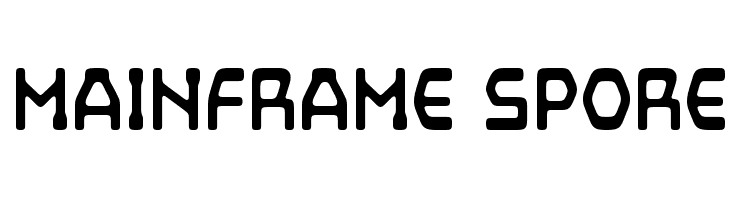
( Disaster Fonts - Andrew - disasterfonts.co.uk )
A futuristic, bold font with rounded edges and a geometric design.
( Disaster Fonts - Andrew - disasterfonts.co.uk )
A futuristic, geometric font with a double-line structure and consistent stroke width.
( Font Bureau - beinghairless.com )
A bold, pixelated font with a retro-futuristic, grid-like design.
( Iordanis Passas - http:/ip-art.info )
A bold, textured slab serif font with a vintage, distressed style.
( Rudhi Sasmito - creativemarket.com/rudhisasmito )
A bold, cursive font with a playful and dynamic style.
( Rudhi Sasmito - creativemarket.com/rudhisasmito )
A bold, flowing script font with dynamic curves and elegant style.
( Sascha Timplan - blog.stereotypes.de )
A tall, elegant font with high contrast and elongated strokes.
( BessAsher Rebel )
A bold and italic font with strong, slanted letterforms and a modern, expressive style.
( BessAsher Rebel )
An elegant italic font with moderate contrast and a classic style.
( Flop Design - www.flopdesign.com/ )
A bold, geometric font with a blocky, pixelated design.